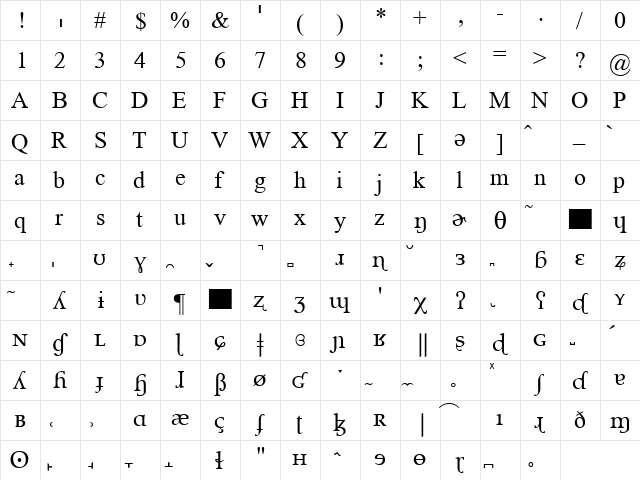
KULDIPA2 Regular Font Preview
KULDIPA2 Regular
KULDIPA2 Regular Font Details
Design Context for KULDIPA2 Typeface
KULDIPA2 is a composed and adaptable typeface that performs quietly and consistently across a wide range of design contexts.